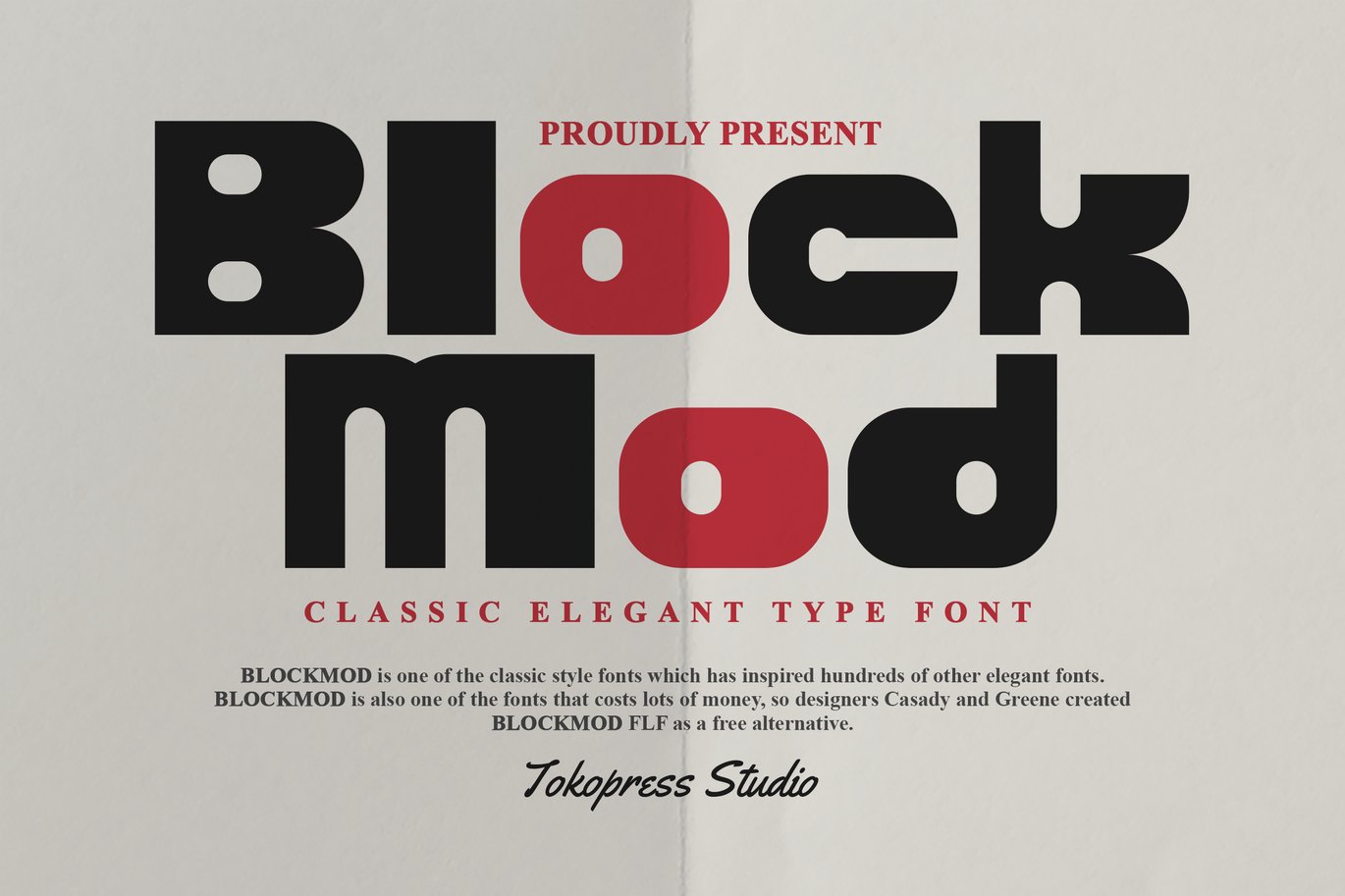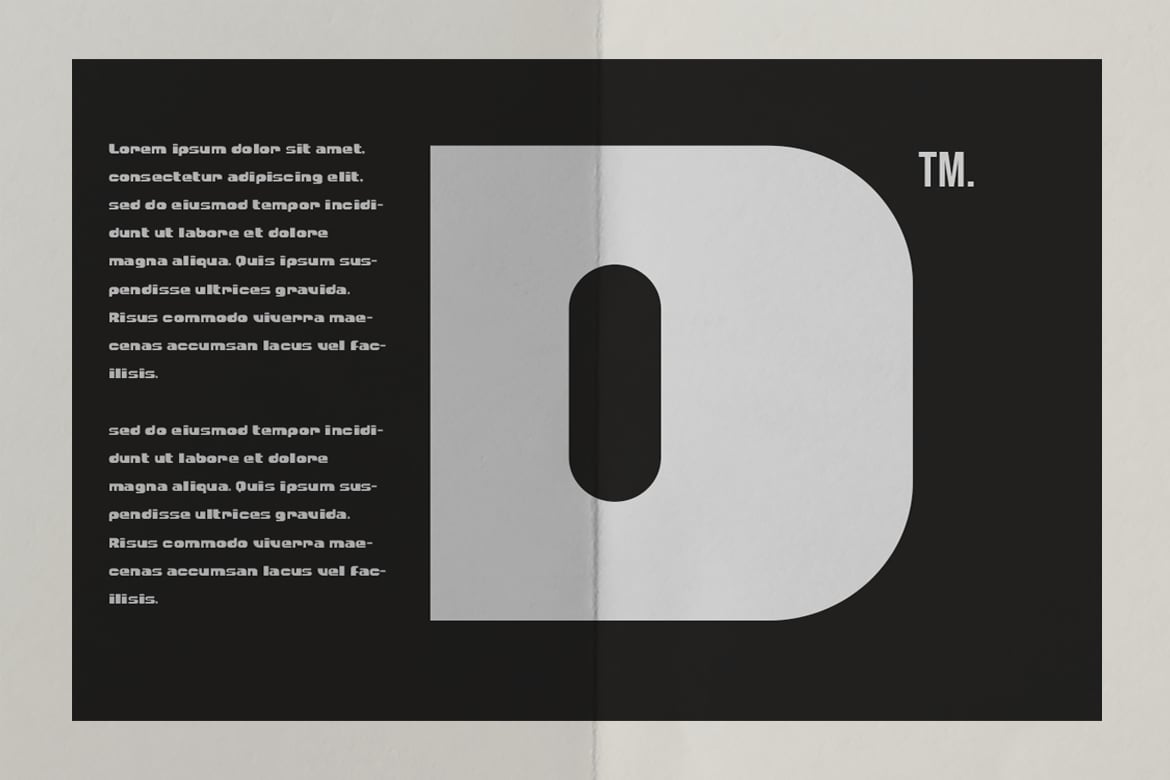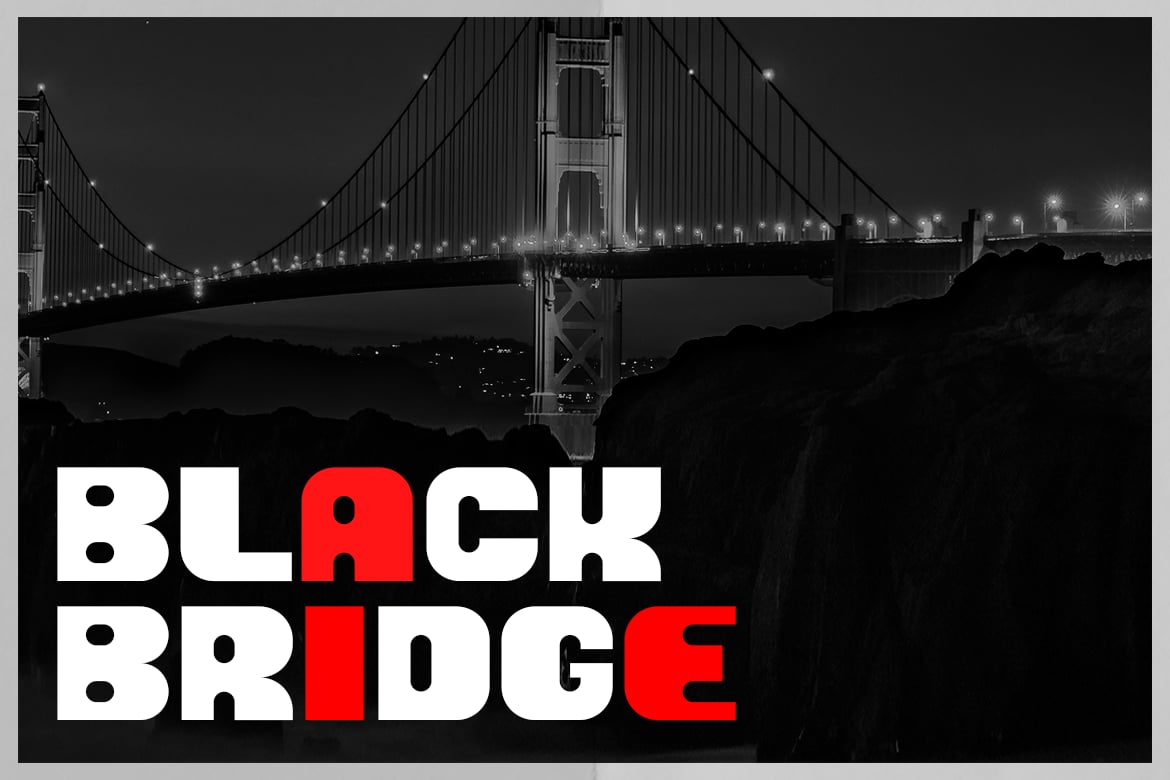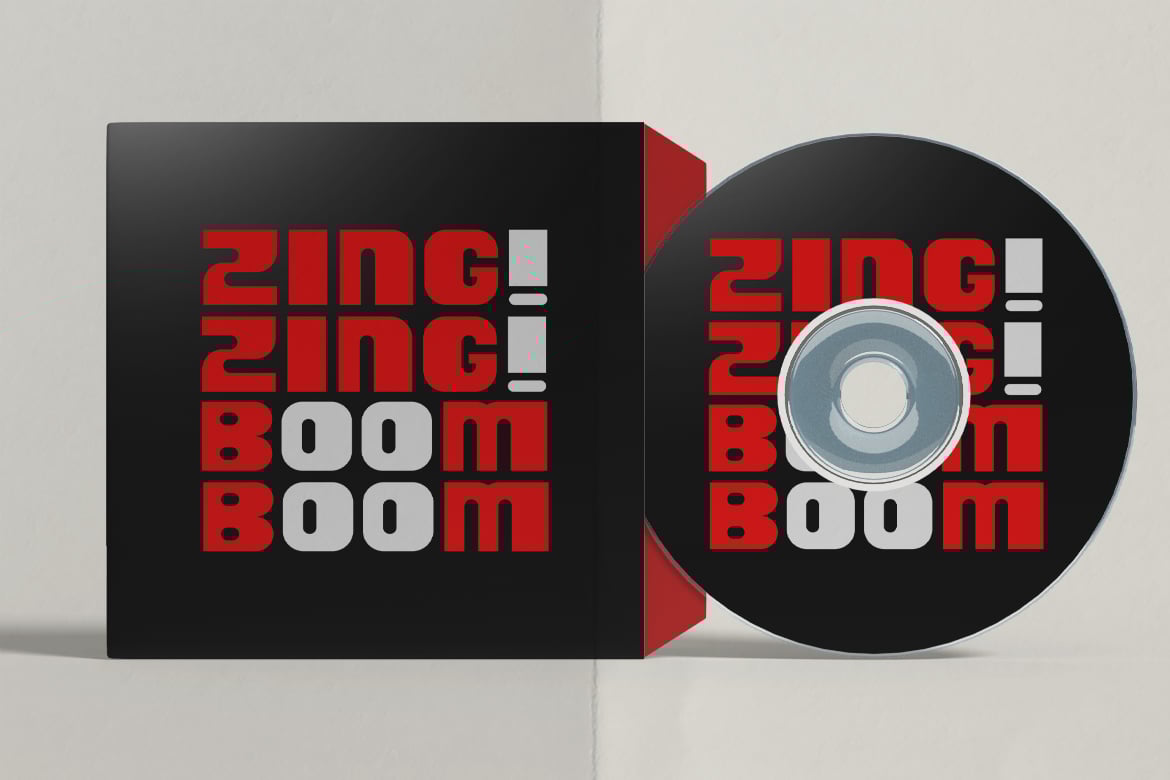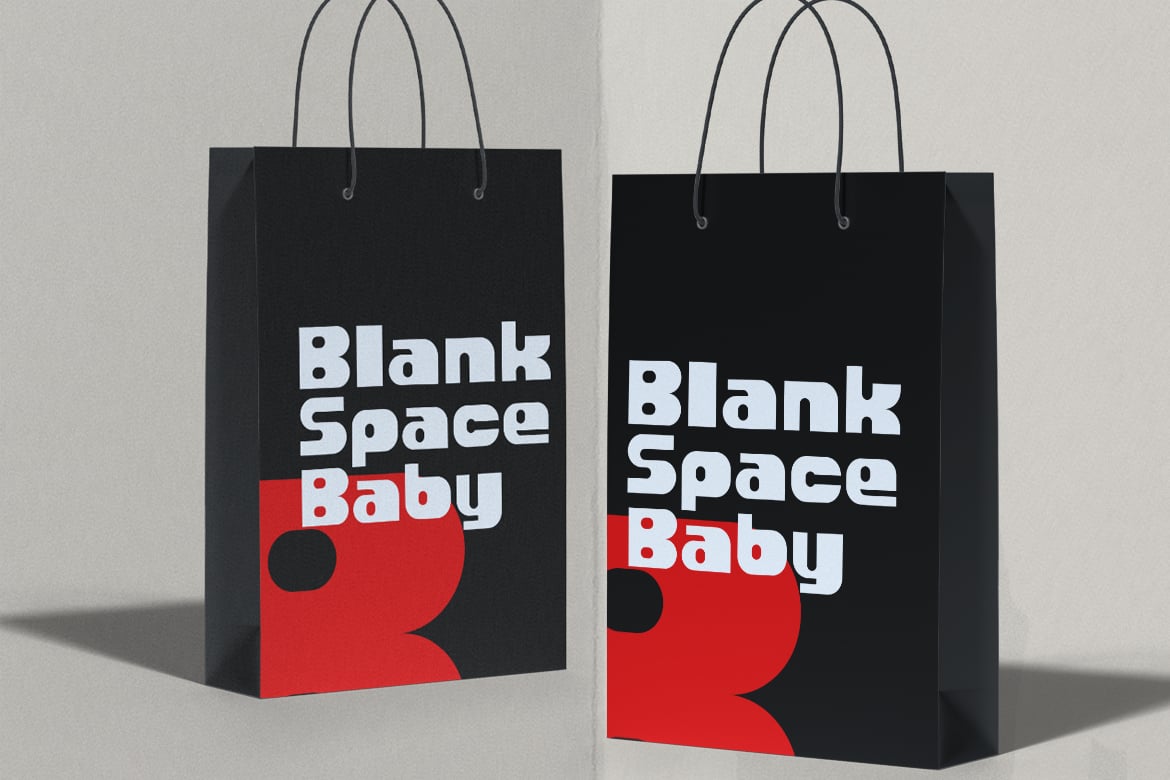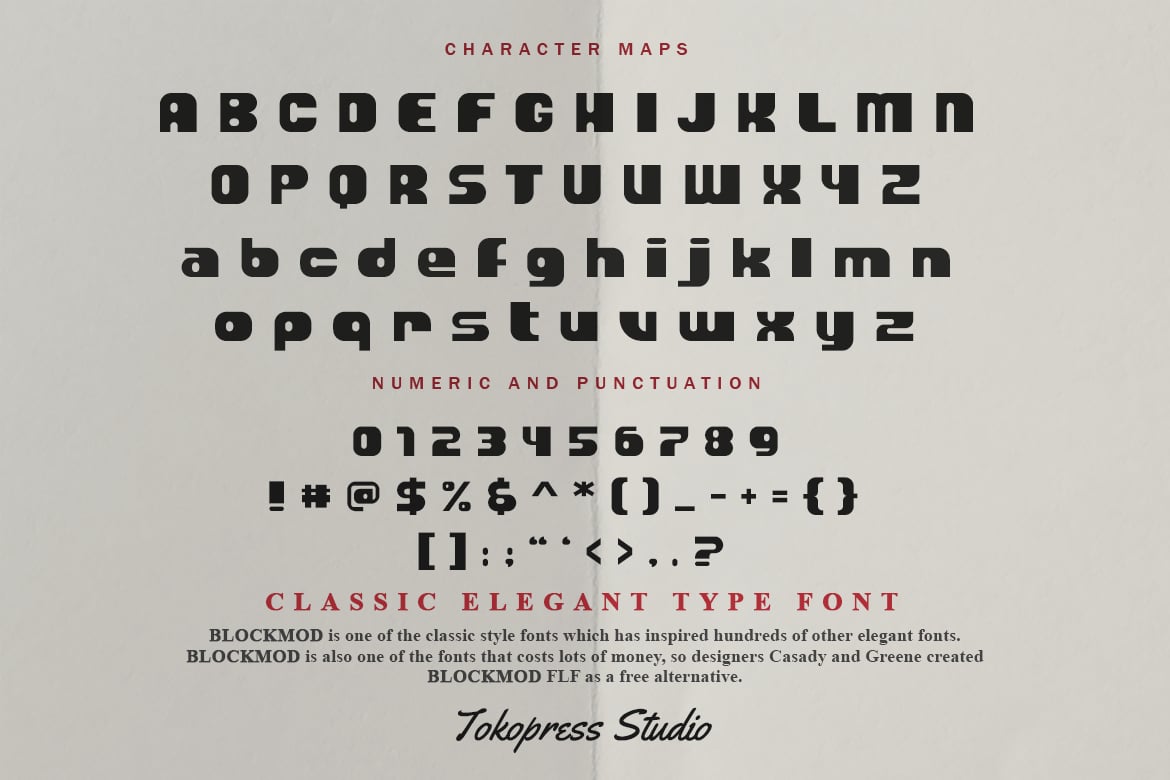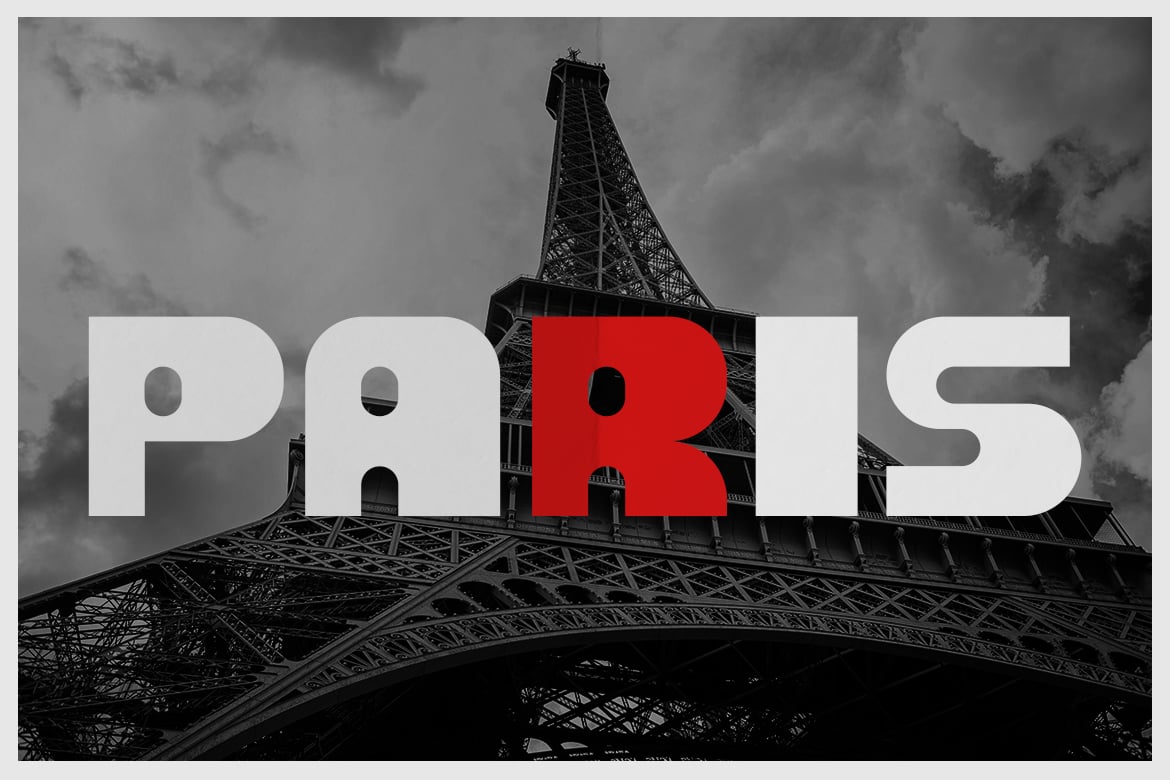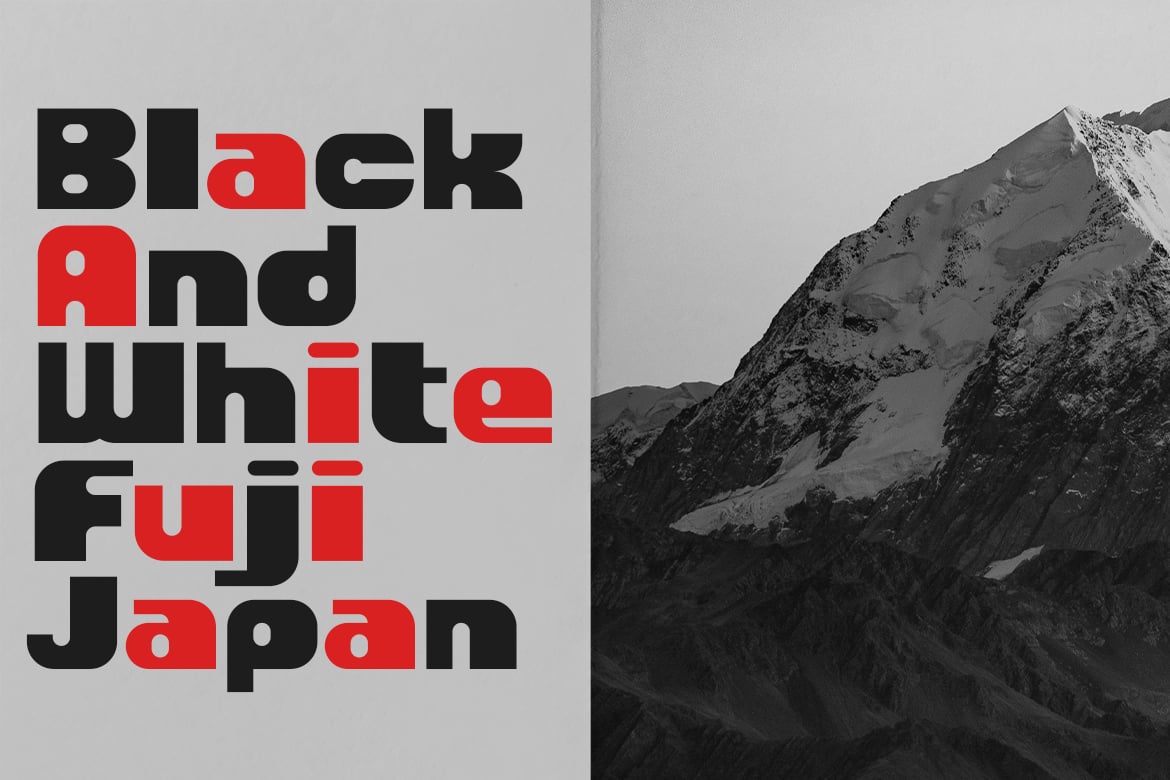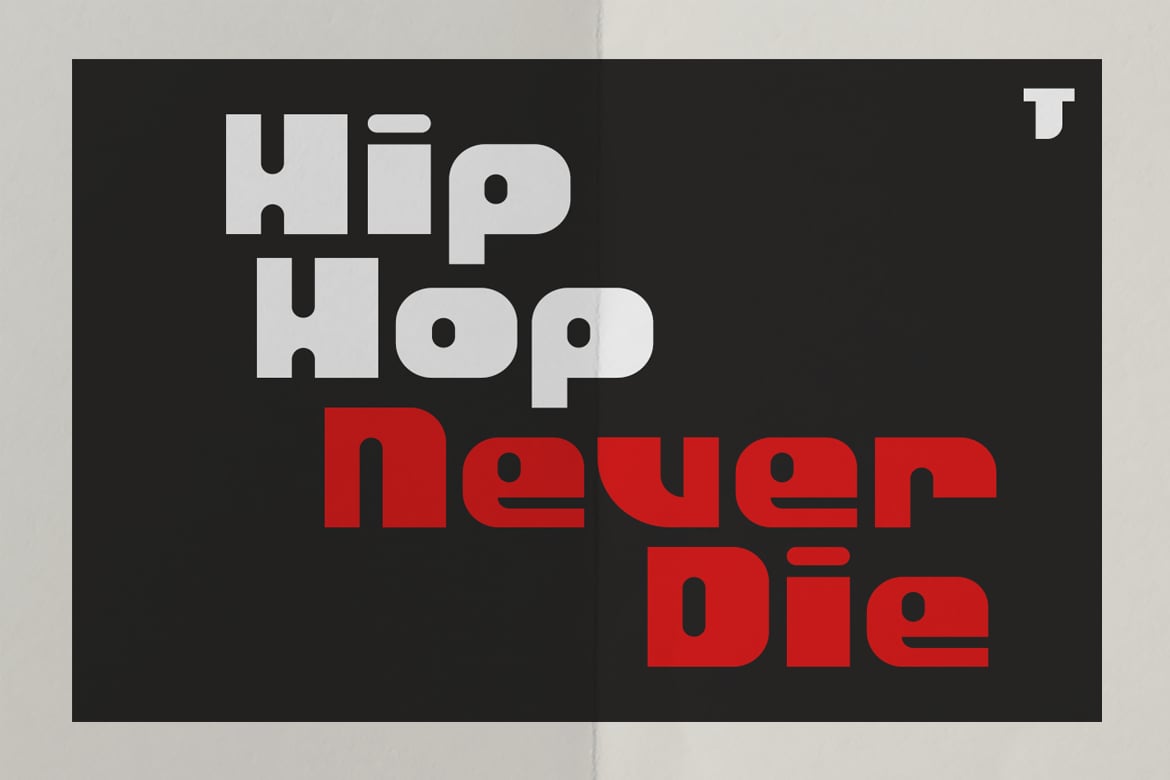
Blockmod – Block modern font
Block, bold, stand out from the crowd. Is what Blockmod all about. Being the loudest in the society.
Suit perfectly for high-end market audiences, poster, movie title, classic restaurant/ cafe menu, magazine, youtube covers, youtube thumbnails, social media page covers and so on…